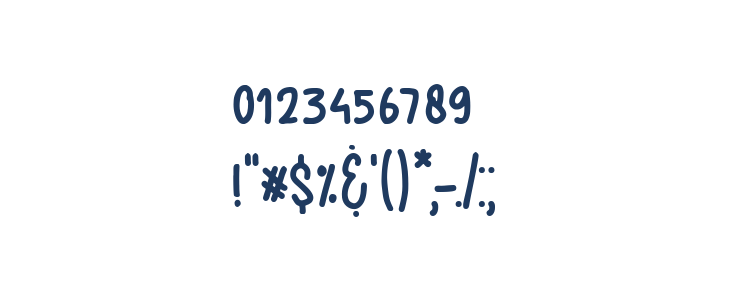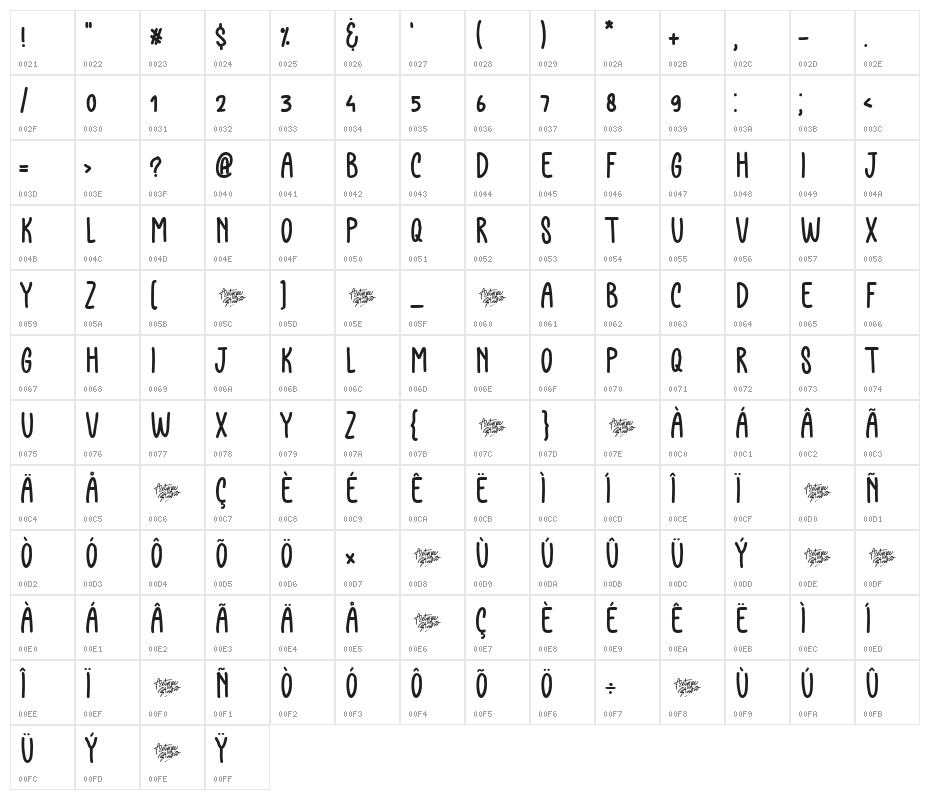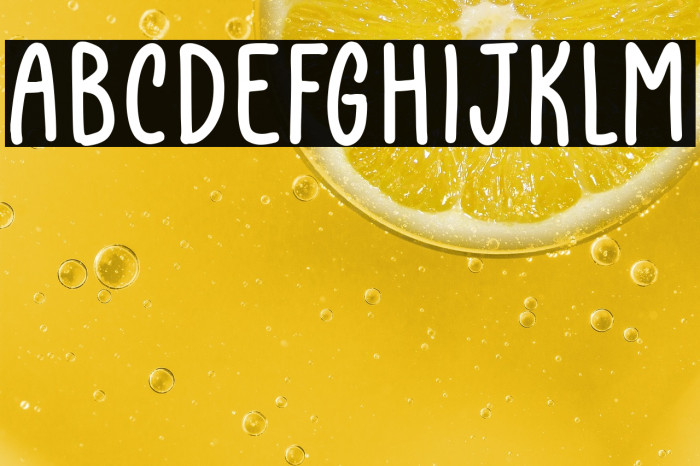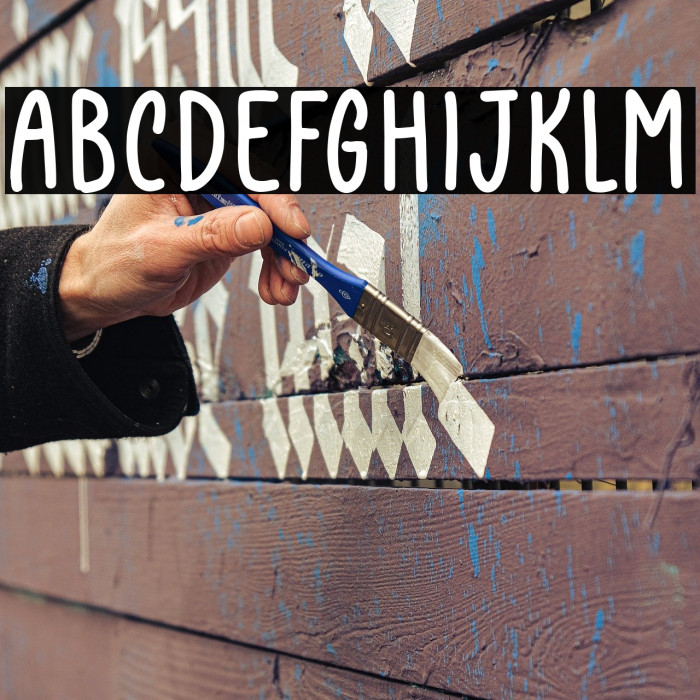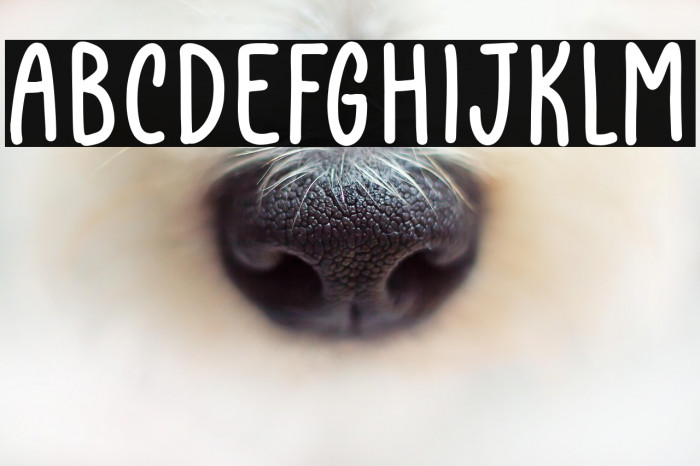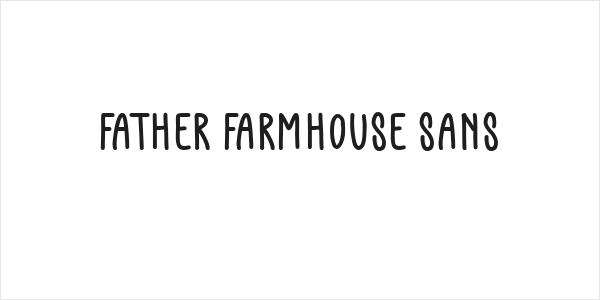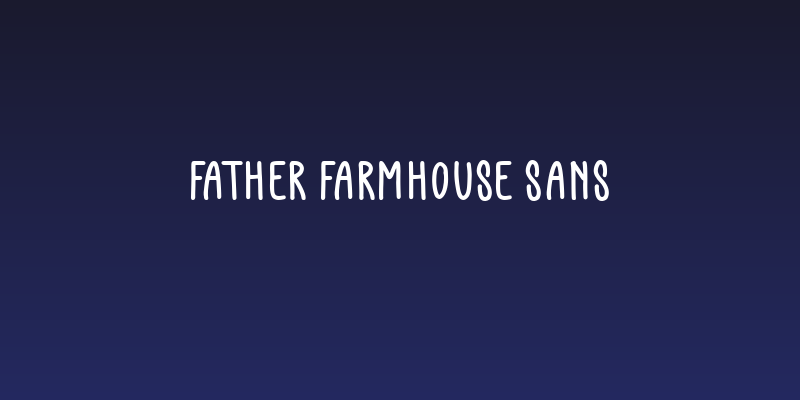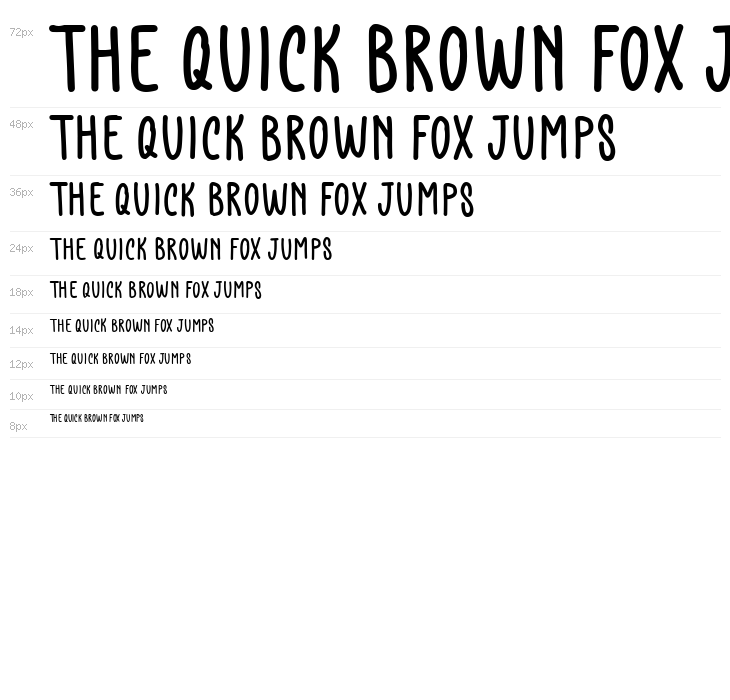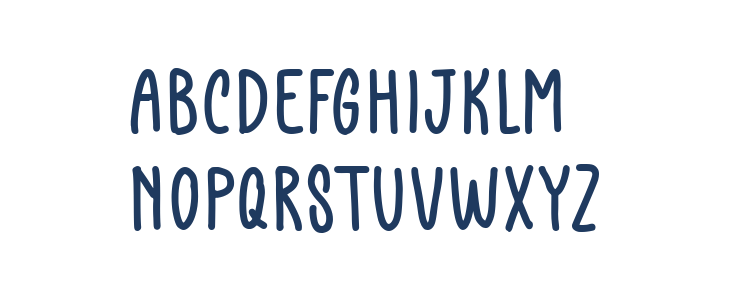
Father Farmhouse Sans Font
Father Farmhouse Sans Description
This font features a playful and casual handwritten style, characterized by its rounded and slightly irregular letterforms. The uppercase and lowercase letters maintain a consistent flow, giving it a friendly and approachable appearance. The numerals and special characters follow the same informal style, making it versatile for various creative projects. The strokes are moderately thick, providing good legibility while retaining a whimsical charm. This font is ideal for projects that require a personal touch, such as invitations, greeting cards, or branding for artisanal products.
Overall StyleCasual
Use CaseHeadlines, Logos, Invitations
Proposed ProjectsIdeal for invitations, greeting cards, artisanal branding, and creative projects.